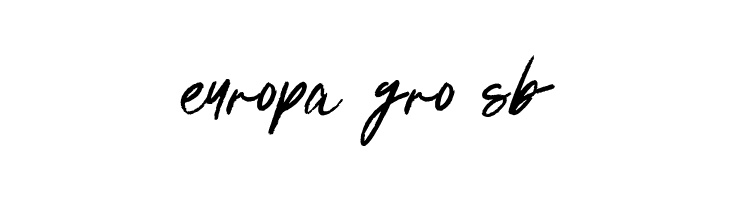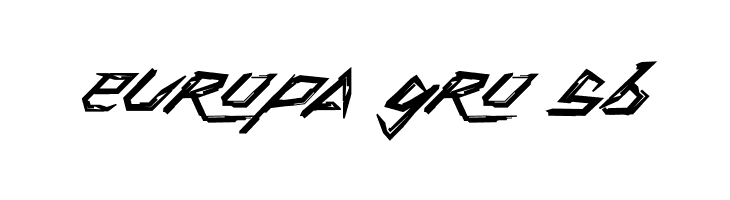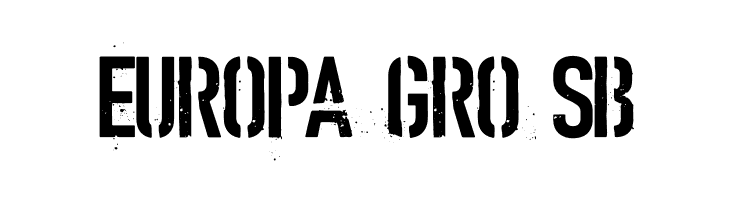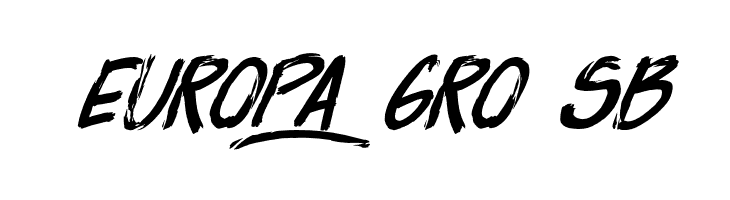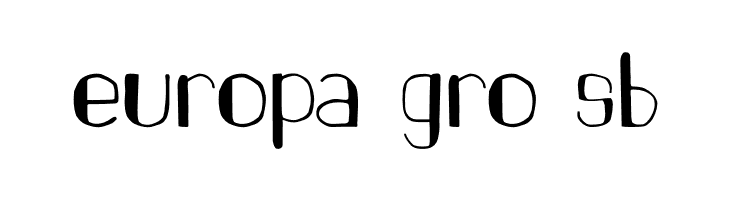
A dynamic handwritten font with fluid, slightly irregular strokes and a casual, elegant style.
A bold, angular font with a futuristic, graffiti-inspired style.
A bold, distressed font with a rugged, industrial aesthetic.
A bold, geometric slab serif font with a modern and industrial feel.
A bold, energetic brush script font with a hand-painted look.
A bold, distressed font with a vintage, industrial style.
A bold, geometric font with unique cutouts and a modern aesthetic.
A bold, cursive font with a pirate-inspired, adventurous style.
A playful, hand-drawn font with dynamic strokes and a whimsical style.
A playful, hand-drawn font with rounded edges and a casual style.